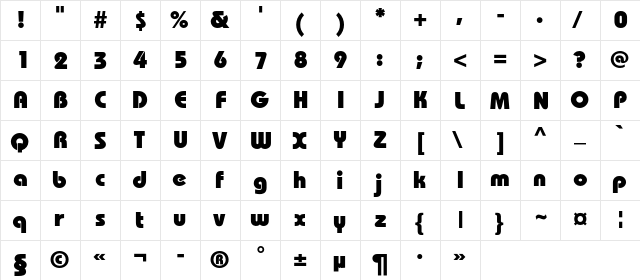
BauhausC Heavy Regular Font Preview
BauhausC Heavy Regular
BauhausC Heavy Regular Font Details
Design Context for BauhausC Heavy Typeface
BauhausC Heavy is a composed and adaptable typeface that performs quietly and consistently across a wide range of design contexts.